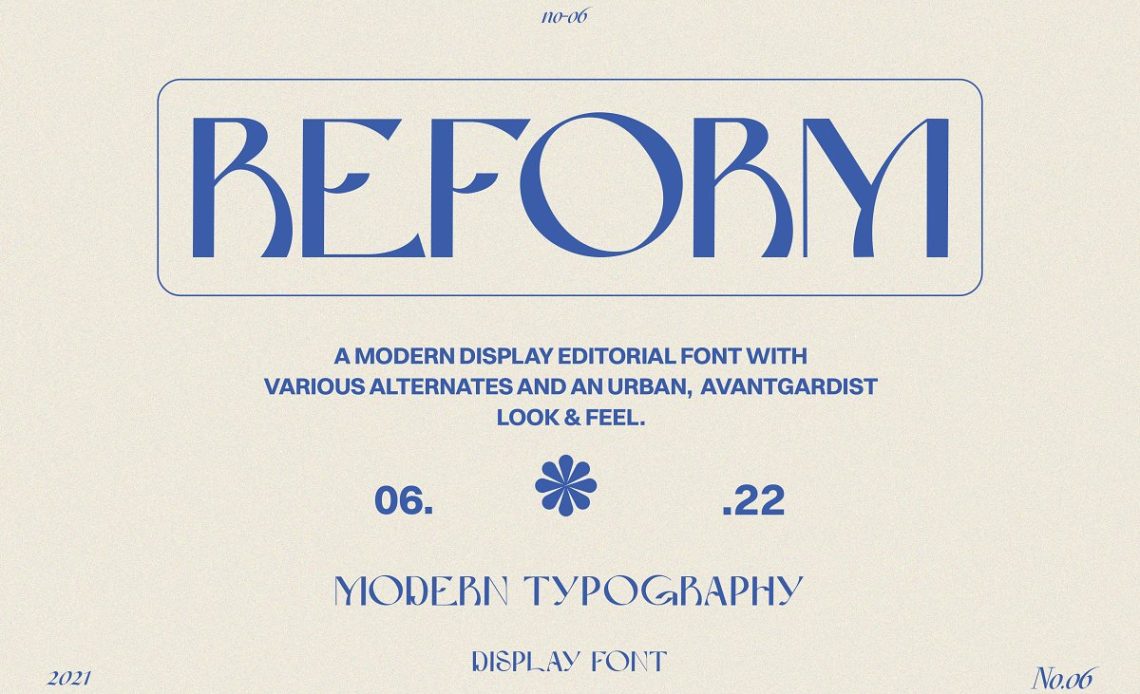
Introducing Reform - the ultimate modern display font that is a must-have for your font collection. With its perfect blend of modern and classic elements, Reform is the perfect choice for anyone looking for a font that is both chic and versatile.
Created by the talented designer Lara Mai, Reform is the best font for LCD display that effortlessly adds an urban style to your project. With its minimalist letters, Reform highlights your artwork, logo, brand or website in a bold and artistic way that is sure to capture your audience's attention.
Reform is a contemporary font that is perfect for any design project. Whether you're creating bold headlines or designing editorial layouts, Reform will help you stand out from the crowd. Its carefully selected alternates give you the freedom to choose from a variety of artful shapes, making your designs unique and unforgettable.
Don't settle for ordinary fonts that leave your designs looking lackluster. Choose Reform, the font that is sure to elevate your designs and give them the creative flair they deserve.